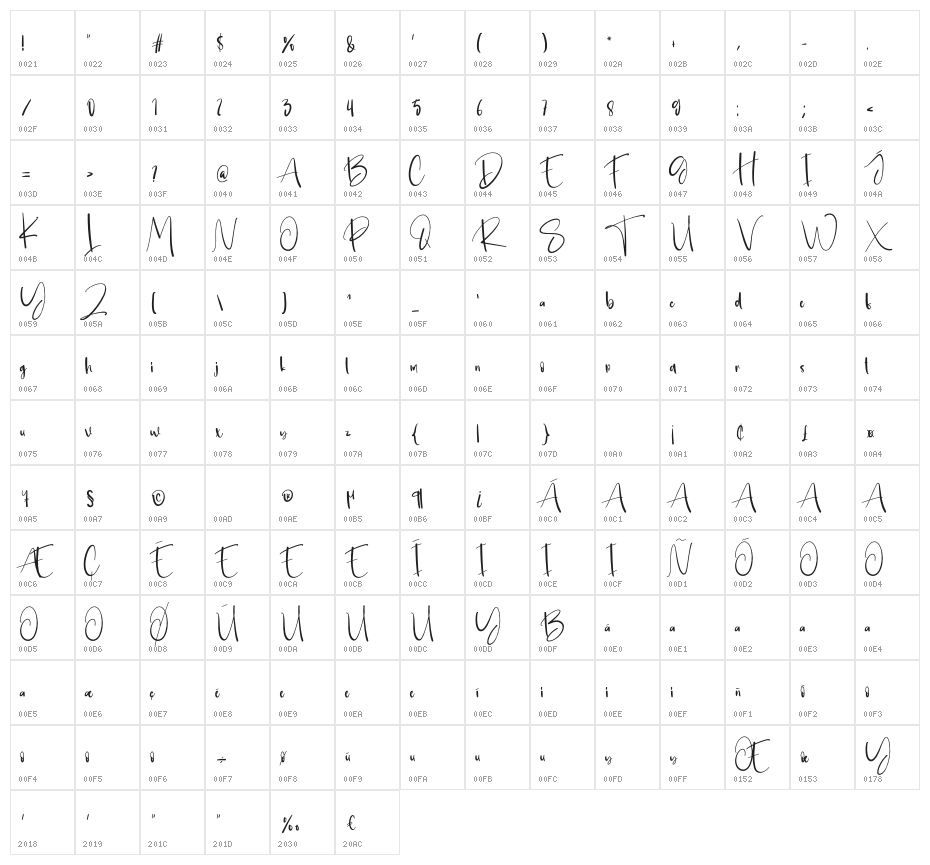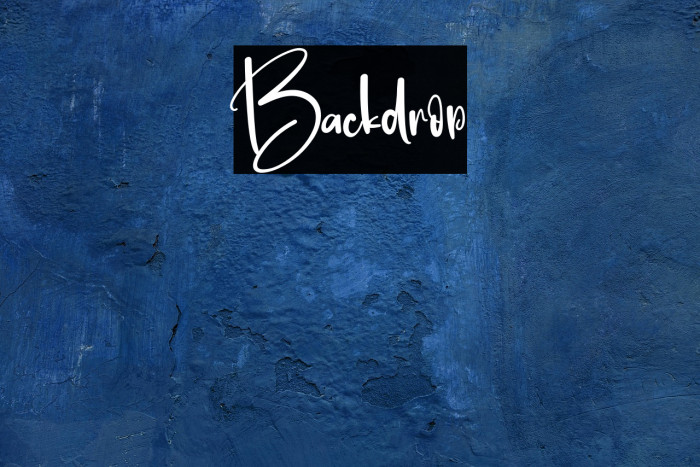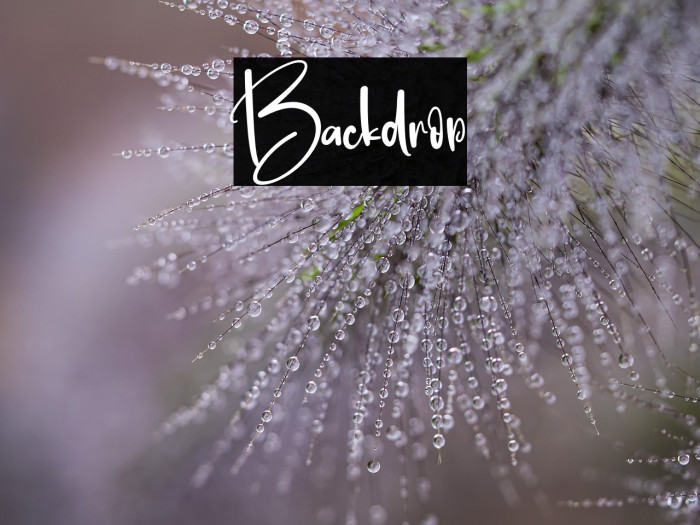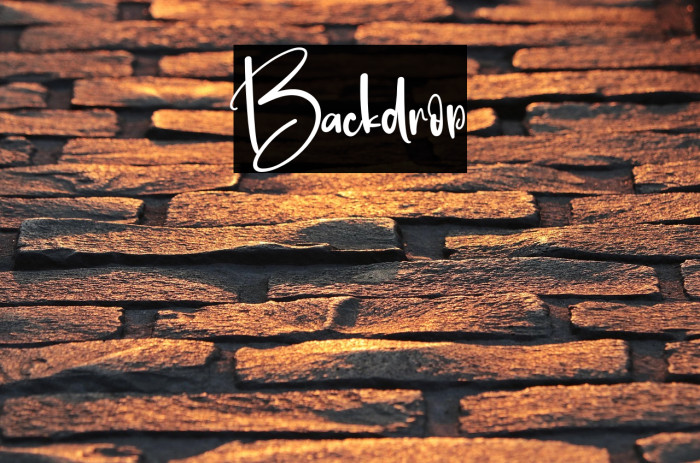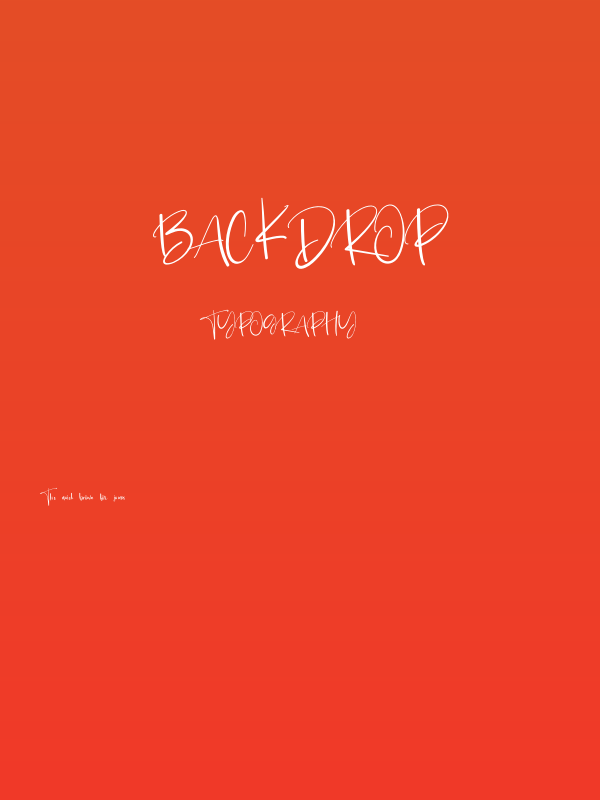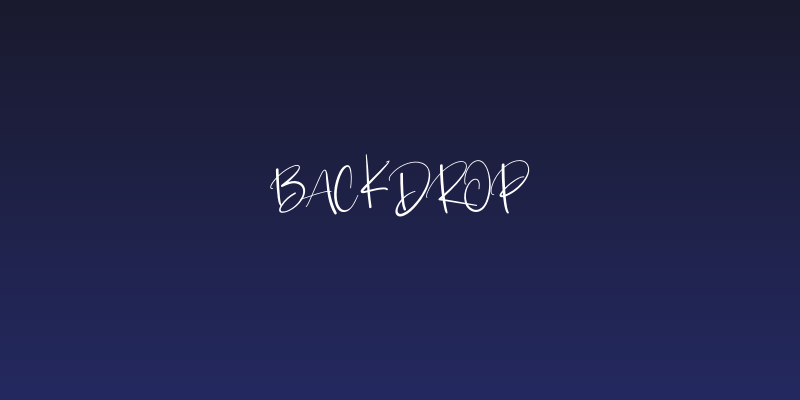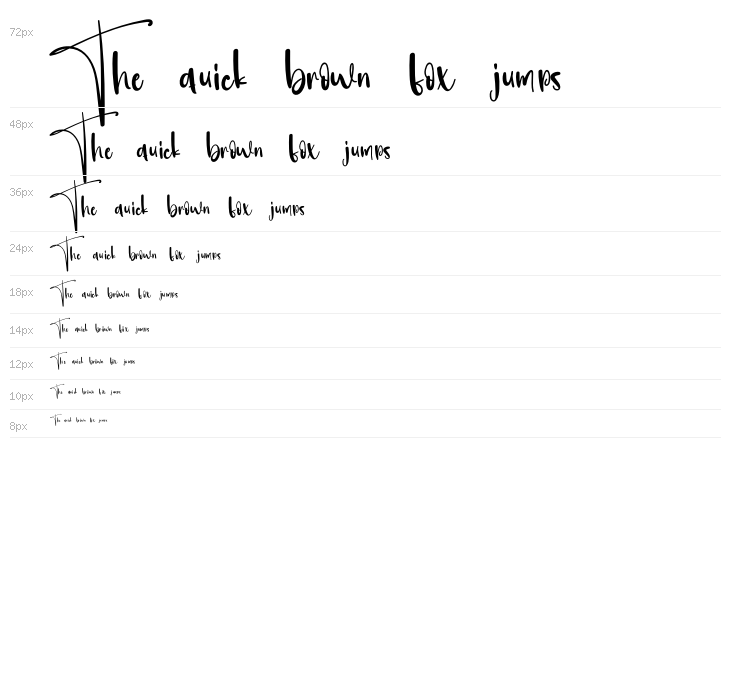
Backdrop Font
Backdrop Description
This font exhibits a playful and expressive handwritten style, characterized by its fluid and dynamic strokes. The uppercase letters are tall and slender, with a whimsical flair that adds a sense of movement and energy. The lowercase letters maintain a consistent flow, with rounded forms that enhance readability. Numbers and special characters follow the same lively aesthetic, making them stand out with a unique charm. The overall appearance is informal yet stylish, suitable for projects that require a personal touch or a creative edge.
| Use Case | Logos, Headlines, Creative projects |
| Proposed Projects | Ideal for greeting cards, invitations, personal branding, and creative projects that require a touch of personality. |